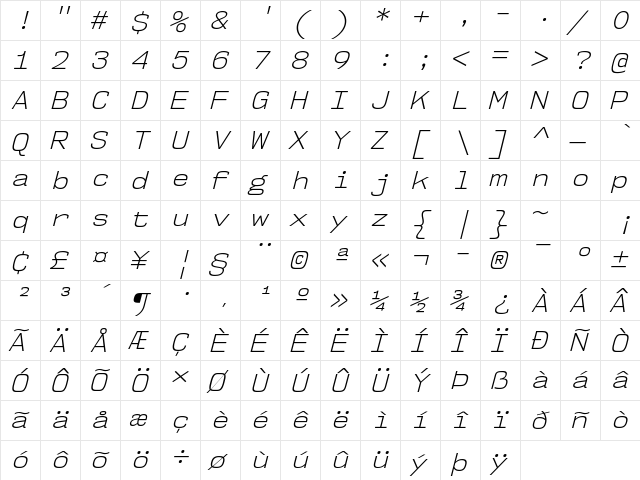
NK57 Monospace Light Italic Font Preview
Design Context for NK57 Monospace Typeface
NK57 Monospace uses fixed-width spacing throughout, giving it the structured, systematic character associated with coding environments and technical documentation. Its italic angle brings a sense of urgency and motion to the letterforms. The delicate stroke weight brings airiness and refinement to layouts.
Pro Tip: Pair NK57 Monospace with a proportional sans for UI contexts where code-style labels and regular body copy need to coexist.